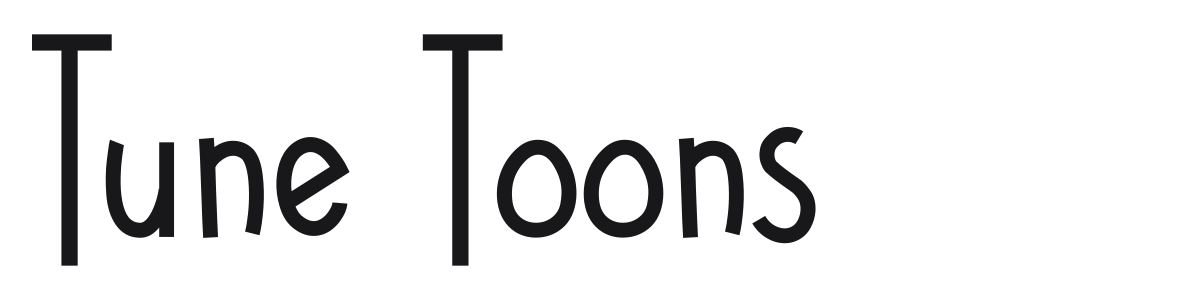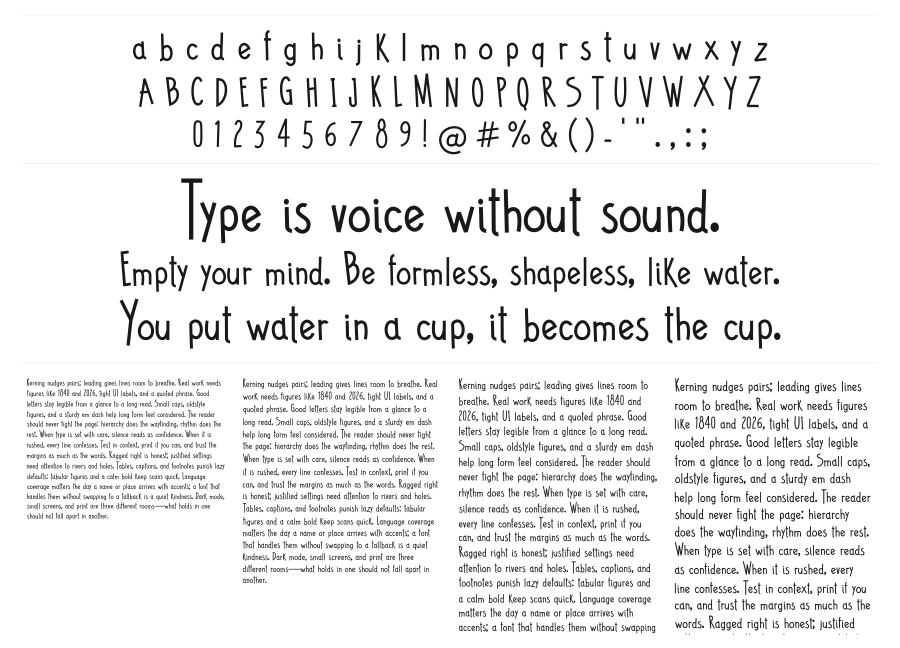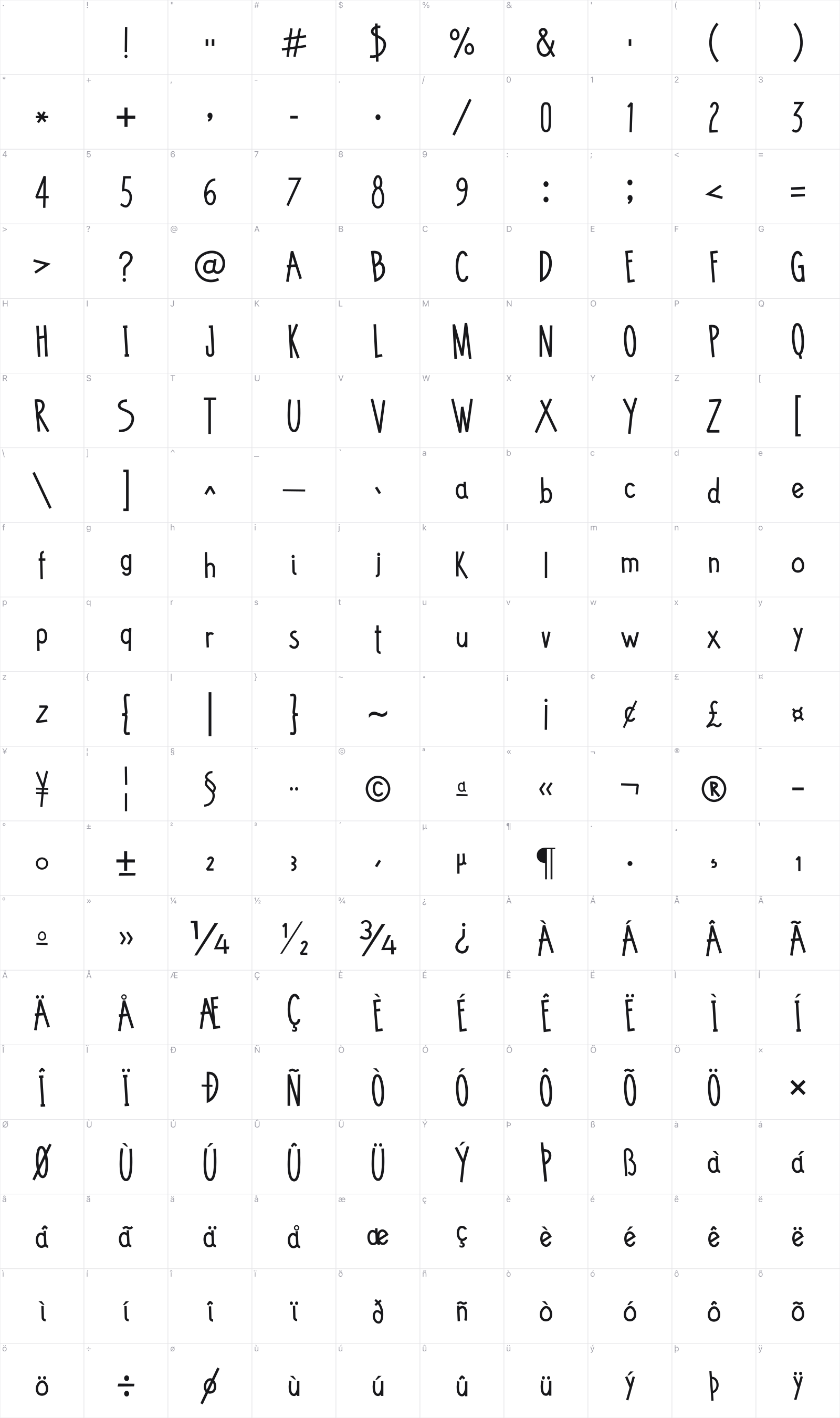
Tune Toons
Tune Toons is a playful casual sans with wobbly, hand-drawn construction and cartoon energy. Subtle irregularities in stroke and form give it an animated personality, as though the letters were drawn by a confident cartoonist rather than a type tool. Strong for children's books, game titles, and any project that needs a lighthearted, expressive voice.